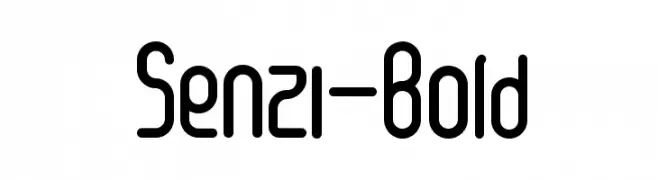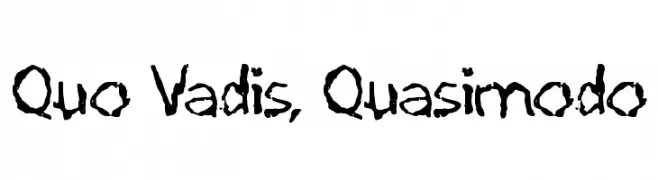
A bold, hand-drawn font with a playful, scribbled texture.
A bold, playful font with rounded, solid characters and a modern, cohesive style.
A bold, modern font with rounded edges and a geometric structure.
A rugged, distressed font with an organic, hand-drawn appearance.
An elegant, decorative serif font with intricate line work.
A geometric, maze-like font with bold, interconnected lines and a modern artistic style.
A bold, geometric, and condensed font with a modern, futuristic style.
设计师偏爱 Folk Art Dividers, Golden Star, WetinCaroWant, Obloquy Solid [BRK] and Senzi-Bold,因为其造型干净、适用范围广—— 从品牌识别到落地页、海报都能胜任。